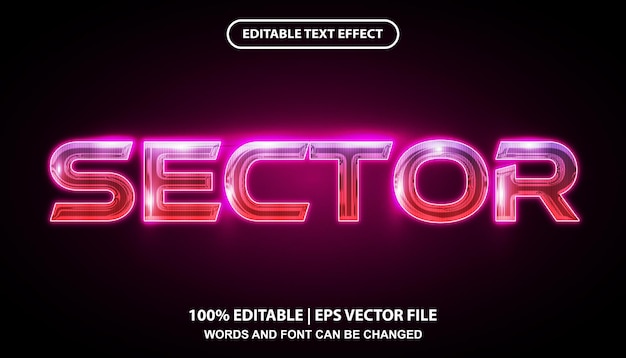
action editable text effect template, futuristic glowing neon light effect font style
Action editable text effect template, futuristic glowing neon light effect font style